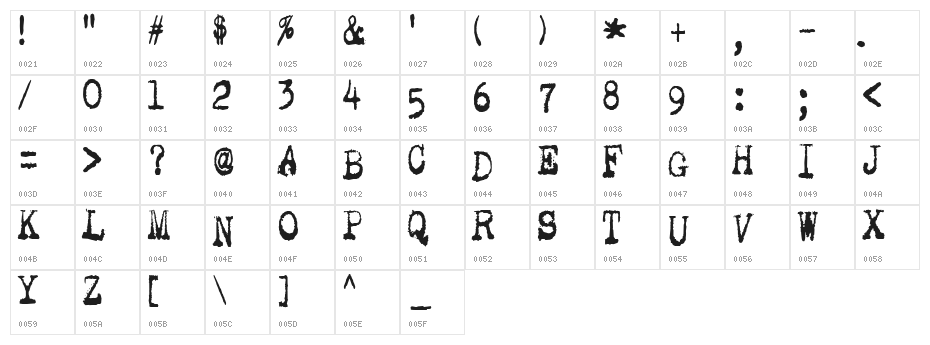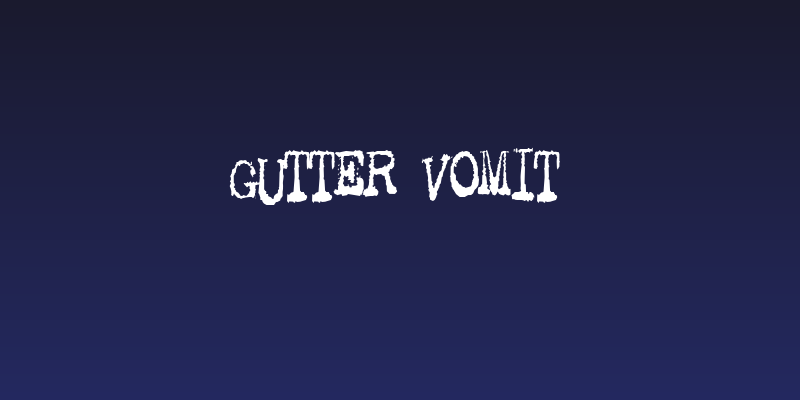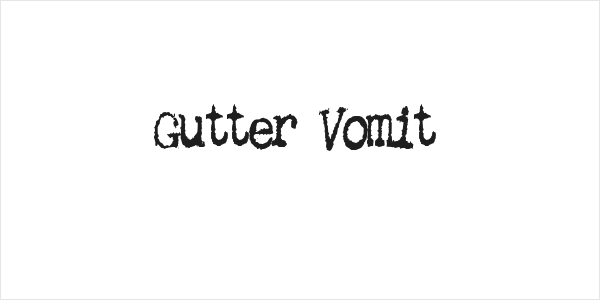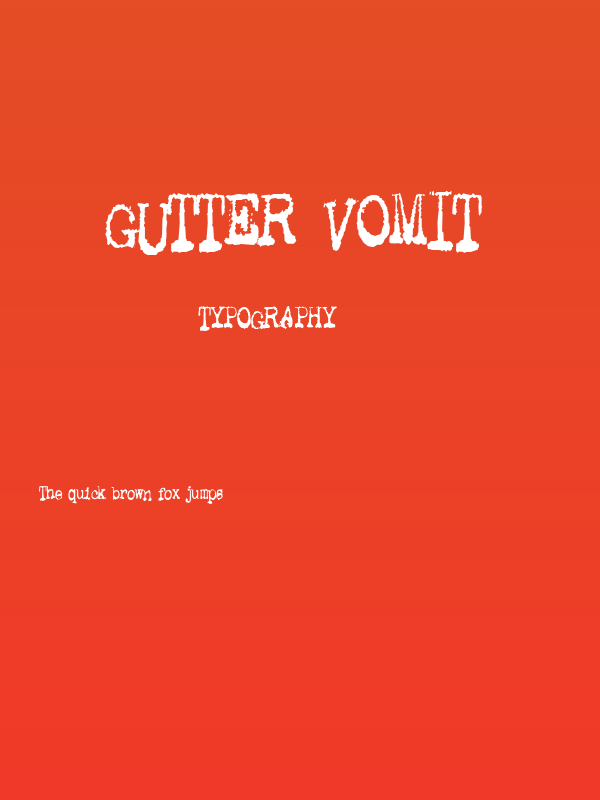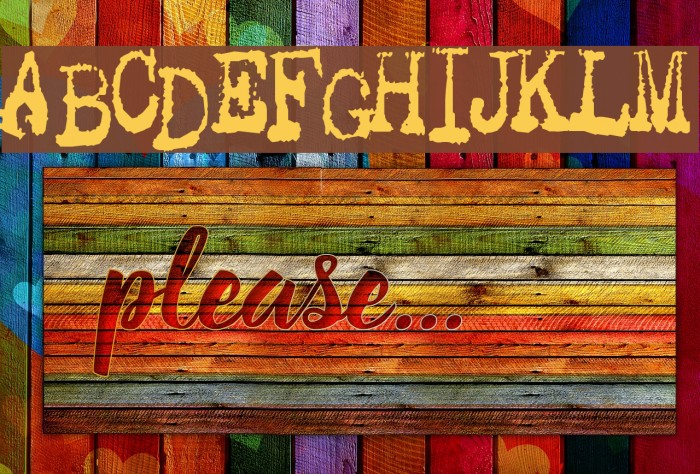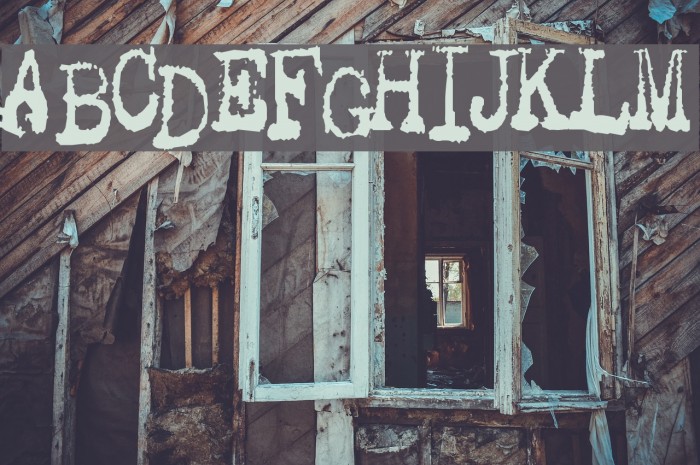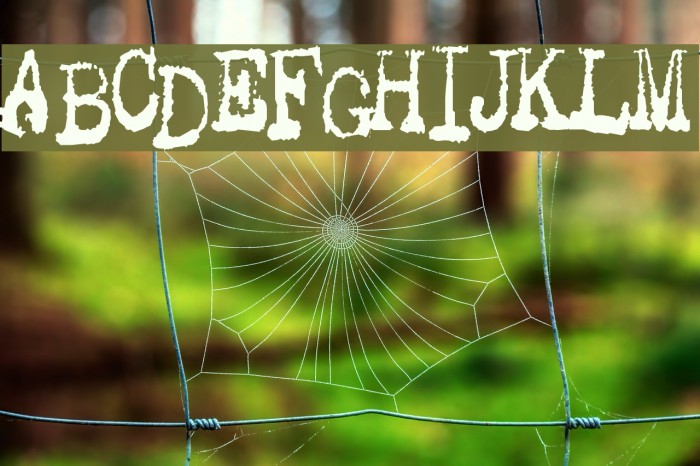
Gutter Vomit Font
Gutter Vomit Description
This font exhibits a grungy, distressed style with irregular edges and a rough texture, reminiscent of urban decay or graffiti. The characters are bold and uneven, giving a chaotic and rebellious feel. The uppercase and lowercase letters maintain a consistent rugged appearance, while the numbers and special characters follow the same distressed theme. This font is ideal for projects that require a raw, edgy aesthetic, such as music album covers, streetwear branding, or alternative event posters.
| Overall Style | Grunge, Urban, Edgy |
| Use Case | Logos, Posters, Album Covers |
| Proposed Projects | Ideal for music album covers, streetwear branding, alternative event posters, and any project needing an edgy, urban aesthetic. |